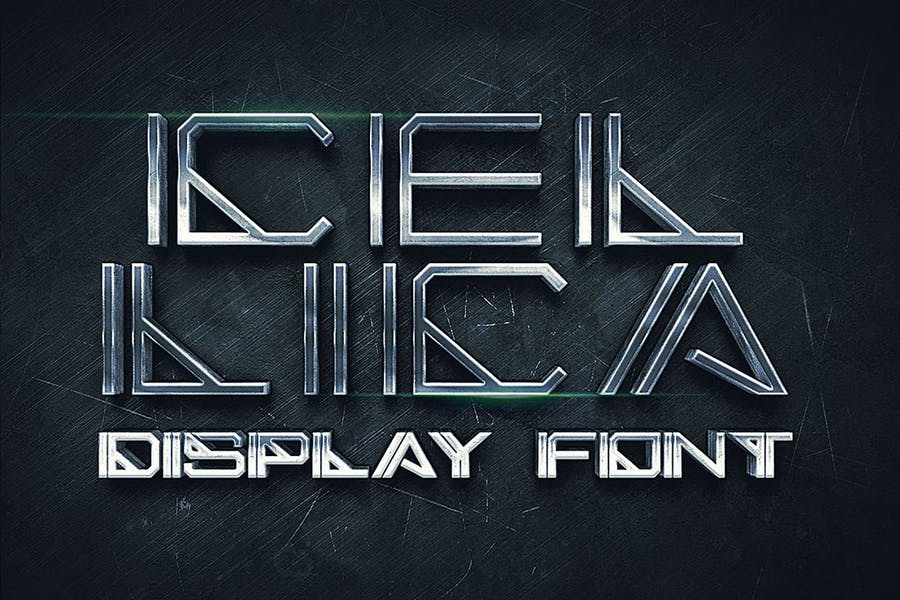
Cellica - Display Font
Cellica Display Font is perfect for scientific laboratory branding, biotechnology company logos, medical research communications, pharmaceutical packaging design, molecular biology marketing, cellular research presentations, advanced healthcare graphics, and innovative biotech campaigns.
What makes Cellica Display Font exciting is its cellular precision that embodies the microscopic beauty and scientific accuracy of cellular biology with molecular sophistication and research authenticity. The font features structured letterforms with organic proportions and cellular character that evoke microscope slides, molecular structures, and the intricate complexity of cellular life and biological research. Its distinctive cellular styling and scientific appeal communicate precision, innovation, and biological expertise, making every message feel observed under a microscope and touched by the fascinating complexity of cellular science and molecular discovery.
The Cellica Display Font family includes regular weight with uppercase and lowercase letters, numerals, punctuation marks, and comprehensive scientific symbols. Premium versions often feature molecular alternates and cellular elements that enhance the scientific, research aesthetic perfect for biotechnology and medical applications.
This precise scientific typeface brings instant credibility and research authority to any cellular biology project. Cellica Display Font Free Download offers exceptional value for biotechnology companies and research institutions seeking to communicate cellular expertise, scientific innovation, and molecular precision to scientific audiences and healthcare professionals.
The molecular character of Cellica Display Font makes it particularly valuable for pharmaceutical companies, biotech research firms, and medical technology manufacturers. Its excellent readability ensures scientific specifications and research communications remain clear while maintaining the distinctive cellular aesthetic that appeals to scientists seeking authentic biological research experiences and molecular innovation.
Biotech industry marketers appreciate how Cellica Display Font effortlessly conveys scientific authenticity and cellular expertise. The font's structured proportions and molecular details create authoritative research materials that establish trust with audiences who value biological innovation, cellular research, and the precise complexity of molecular science and biotechnology advancement.
The versatile precision of this typeface extends to medical education, pharmaceutical research, and cellular therapy where scientific authenticity enhances research credibility and biological appeal. Cellica Display Font Free Download provides creative professionals with an essential tool for developing memorable, science-driven designs that resonate with audiences who embrace cellular biology, molecular innovation, and the structured precision of scientific cellular research in their healthcare and biotechnology experiences.